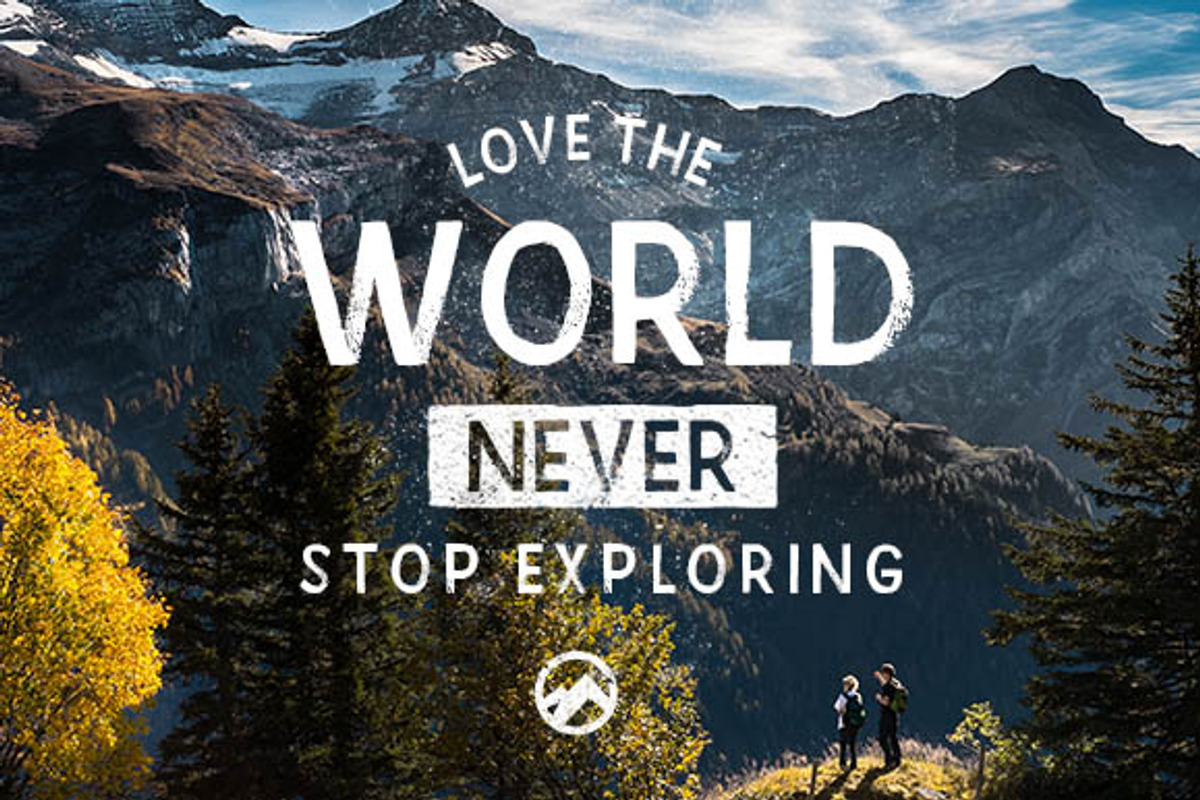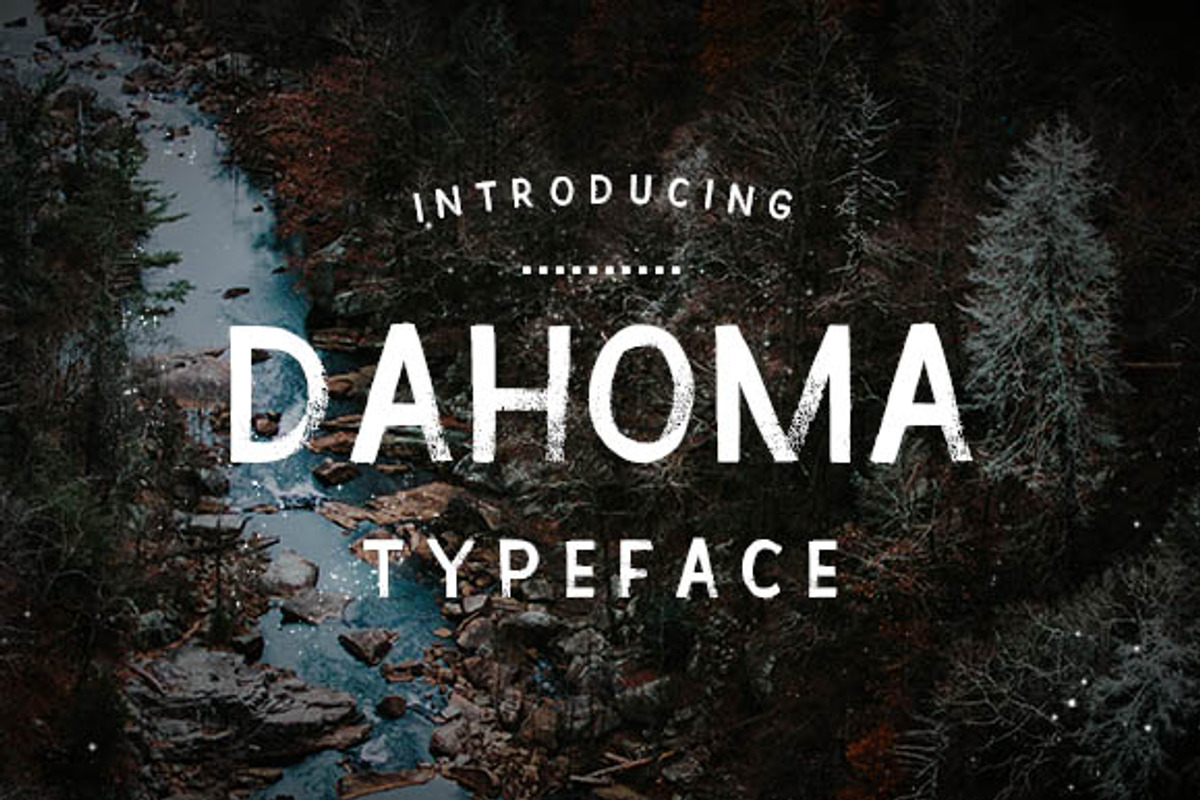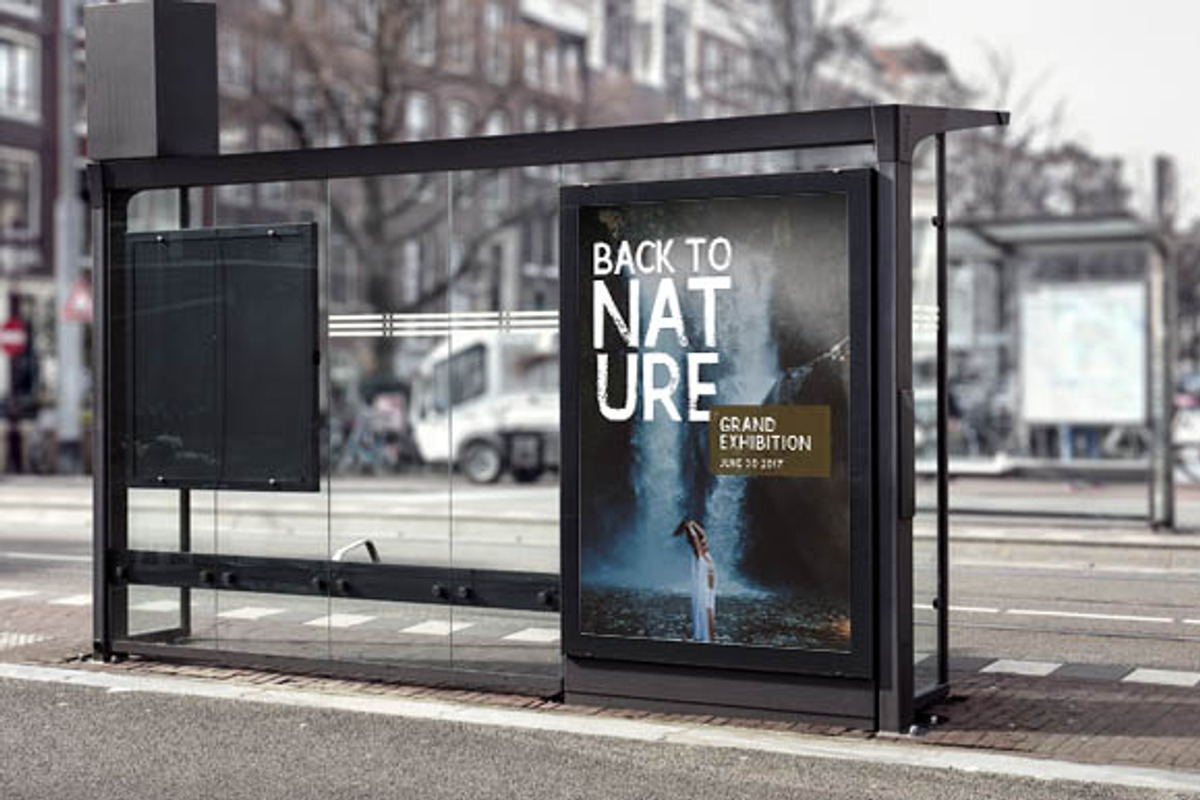
Dahoma typeface
Dahoma a block, sans-serif typeface which was named after a species of tree, is our latest addition in the Lettering Shop. This typeface was created from a No. 4 Flat brush, Guoche black ink and a textured paper. The dry brush texture was too mesmerising not to make this into a font, so i took the punch and made it so i can share it with everyone here!
Why Dahoma typeface is worth a look
Dahoma typeface by Lettering Shop by EJ fits naturally into Branding, posters, packaging, typography.